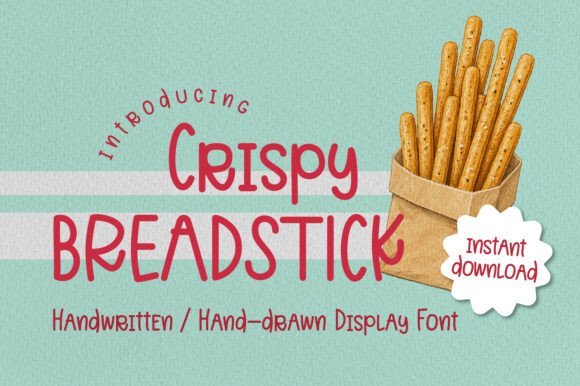
Bring Your Designs to Life with Crispy Breadstick Font
Do you remember the excitement of rummaging through your grandmother’s old recipe book, admiring the handwritten notes and doodles that made each page feel personal and special? That’s the kind of warmth and character you can bring to your creative projects with the Crispy Breadstick Font.
Created with love by mtk studio, this delightful handwritten font is designed to evoke a perfectly imperfect, authentic hand-drawn feel. With its thin, slightly bouncy strokes and cozy aesthetic, Crispy Breadstick Font is the ultimate choice for designers looking to add a touch of personality to their work. Whether you’re crafting recipe cards, digital journals, or minimalist product packaging, this font is sure to elevate your designs and connect with your audience on a deeper level.
Crispy Breadstick Font Key Features
- Font Family: Crispy Breadstick is a unique, hand-drawn font designed to resemble crispy breadsticks.
- Unique Characteristics: Features hand-drawn, irregular shapes and textures, giving it a warm and inviting feel.
Crispy Breadstick Font Review
At first glance, the Crispy Breadstick Font caught my eye with its playful, handwritten feel. Here are my honest thoughts on this font:
- ✨ I love the variety of styles and weights available. It’s perfect for creating a cohesive brand identity.
- ✨ The font is highly customizable, allowing me to adjust the spacing and lettering to suit my design needs.
- ✨ The font is well-suited for use in informal and creative contexts, such as food labels, packaging, and social media graphics.
However, I do have a few concerns:
- ⚠️ In certain contexts, the font can be difficult to read, particularly at smaller font sizes or when used for large blocks of text.
- ⚠️ The font may not be the best choice for formal or professional applications, as it may give off a somewhat amateurish or playful vibe.
Overall, I think the Crispy Breadstick Font is a great choice for designers looking to add some personality to their designs. While it may have some limitations, its unique charm and versatility make it a worthwhile addition to any design toolkit.
Tips for Getting the Most Out of Crispy Breadstick Font
Here are some tips for getting the most out of Crispy Breadstick Font:
- Use it for headings and titles to add a touch of whimsy to your designs
- Combine it with other fonts for a unique and playful look
- Experiment with different font sizes and styles to create visual interest
Crispy Breadstick Font is perfect for:
- Food-related designs (e.g., menus, recipe cards, etc.)
- Playful marketing materials and social media posts